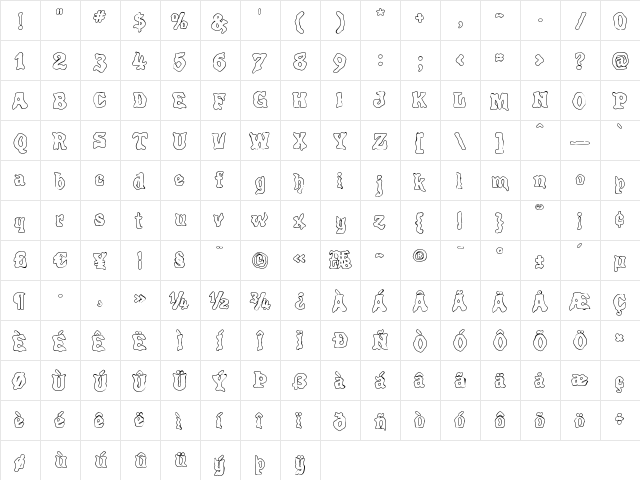
Poultrygeist Out Regular Font Preview
Poultrygeist Out Regular
Design Context for Poultrygeist Out Typeface
Poultrygeist Out is a composed and adaptable typeface that performs quietly and consistently across a wide range of design contexts.
Pro Tip: Use Poultrygeist Out in both headline and body roles to test its range before committing to a single application.